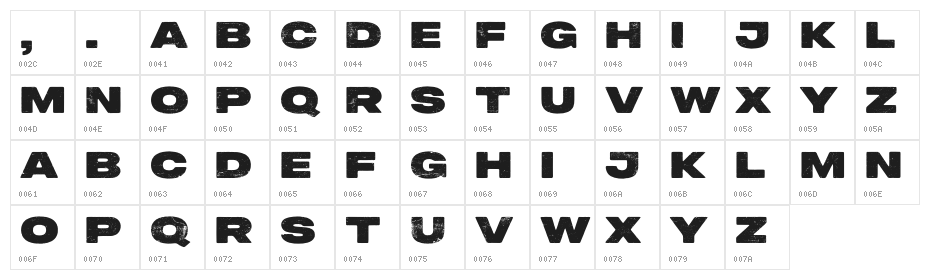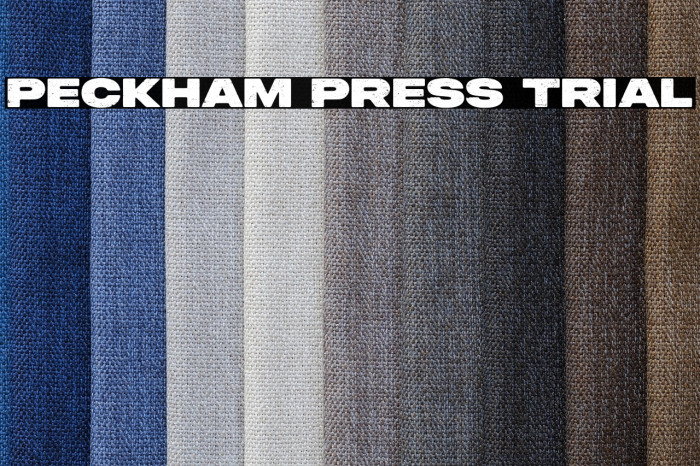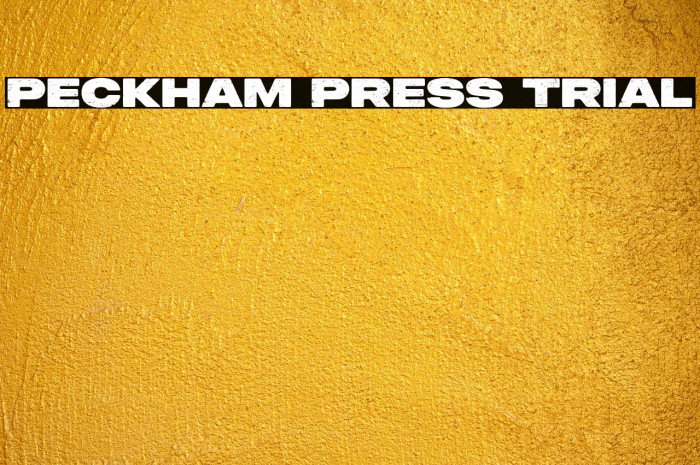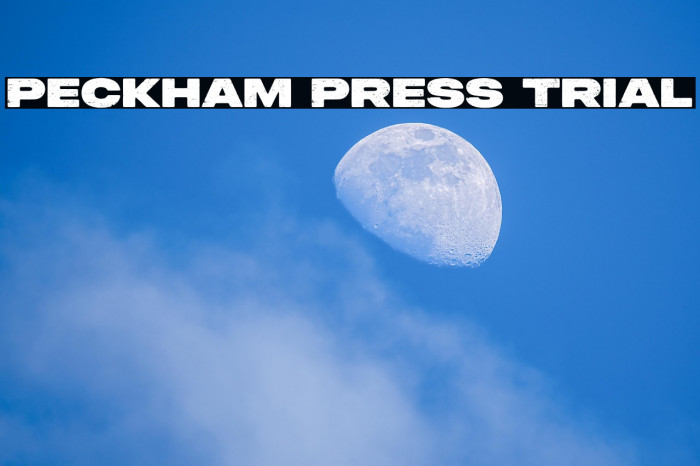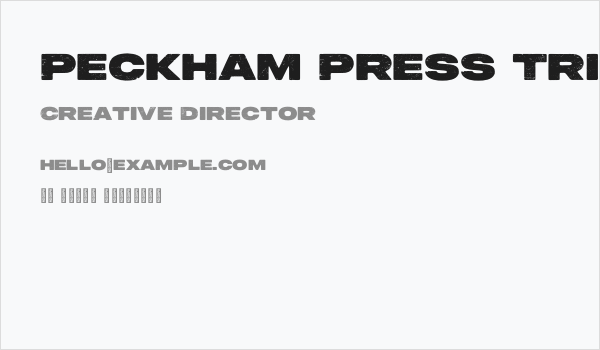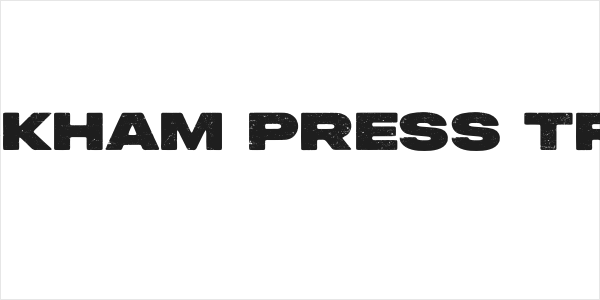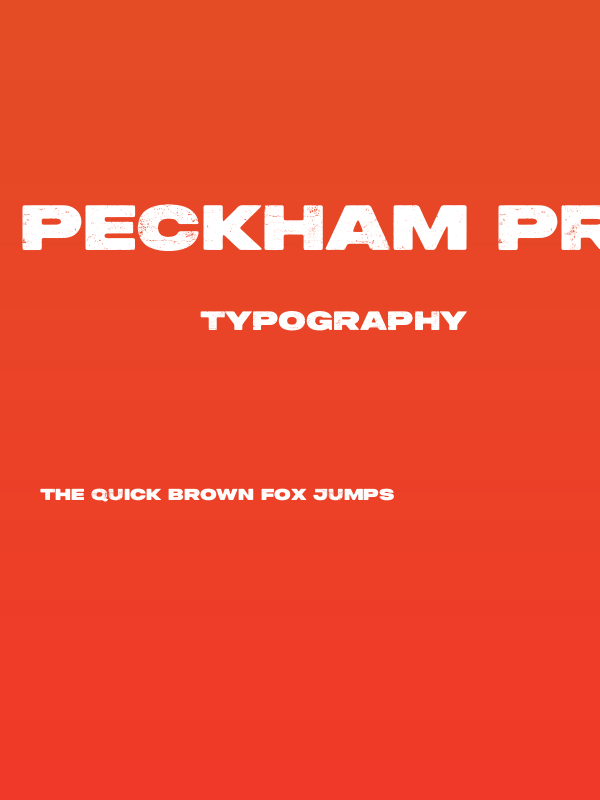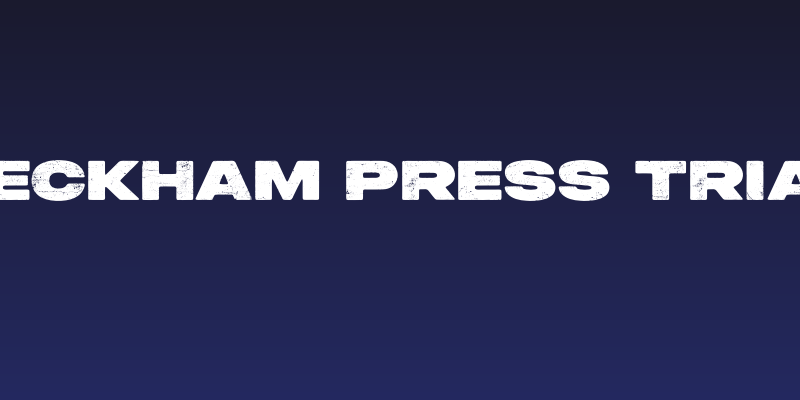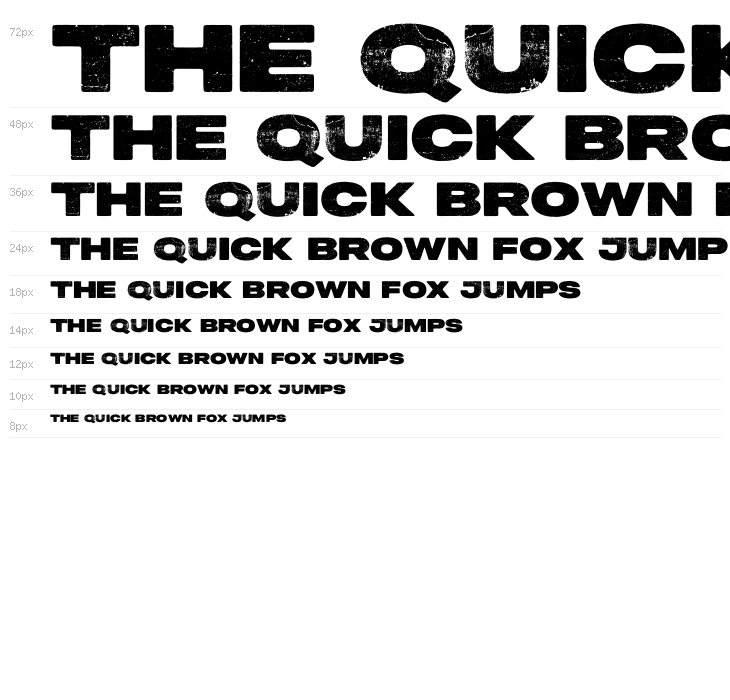
Peckham Press Trial Font
Peckham Press Trial Description
This font features a bold, distressed style with a strong, impactful presence. The uppercase letters are robust and wide, with a textured appearance that suggests a vintage, worn look. The characters are evenly spaced, providing a balanced and cohesive visual. The font's design is reminiscent of old printing press styles, giving it a unique, nostalgic feel. Its boldness and texture make it ideal for projects that require a strong visual impact, such as posters, headlines, or branding materials. The lack of lowercase letters and special characters suggests a focus on simplicity and directness.
| Proposed Projects | Ideal for posters, headlines, branding, and any project needing a strong visual impact. |